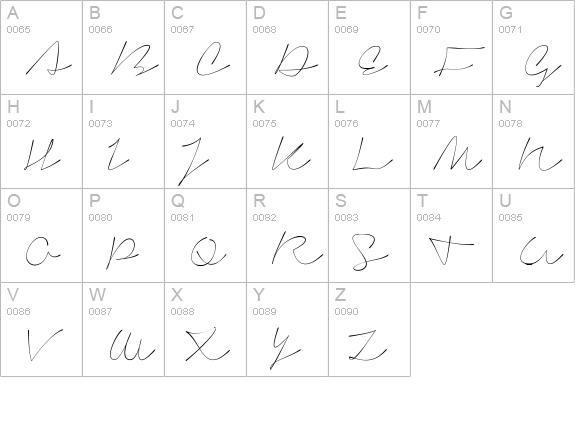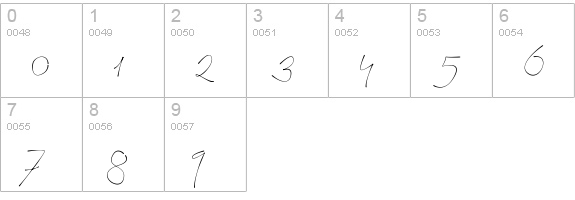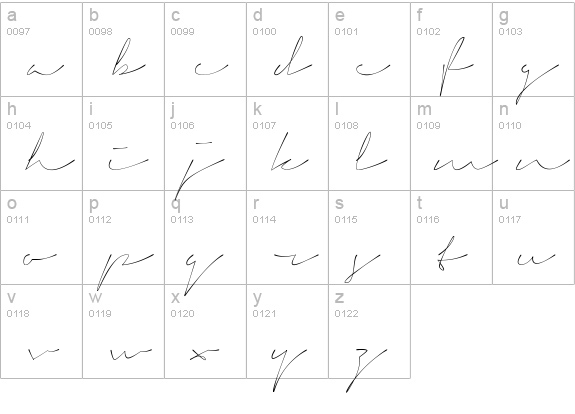
Signerica Thin Font Details
Signerica Thin is a delicate, low-contrast variant in the Signerica typeface family \xE2\x80\x94 well suited to fashion editorial, minimal branding, and high-contrast display.
Signerica Thin is a stunningly elegant font that exudes grace and sophistication. With its delicate and slender strokes, this font adds a touch of refinement to any design project. Whether it's for wedding invitations, logos, or branding materials, Signerica Thin will effortlessly elevate your creations to new levels of elegance. This font's thin and graceful letterforms make it perfect for projects that require a light and airy feel. The carefully crafted curves and clean lines create a harmonious balance that is pleasing to the eye. Signerica Thin is a font that whispers rather than shouts, making it ideal for adding a touch of subtlety to your designs. One of the best things about Signerica Thin is that it is free to download at FontsMarket.com. This means that you can enjoy the beauty and versatility of this font without having to spend a penny. FontsMarket.com is a trusted source for high-quality fonts, and their dedication to providing free fonts like Signerica Thin is truly commendable. Whether you're a professional designer or a casual hobbyist, Signerica Thin is a font that will inspire and delight. Its timeless beauty and versatility make it a must-have in any font collection. So why wait? Head over to FontsMarket.com and download Signerica Thin today to add a touch of elegance to your next design project.